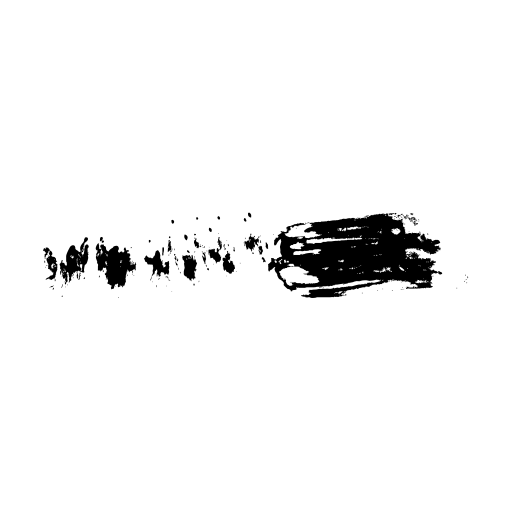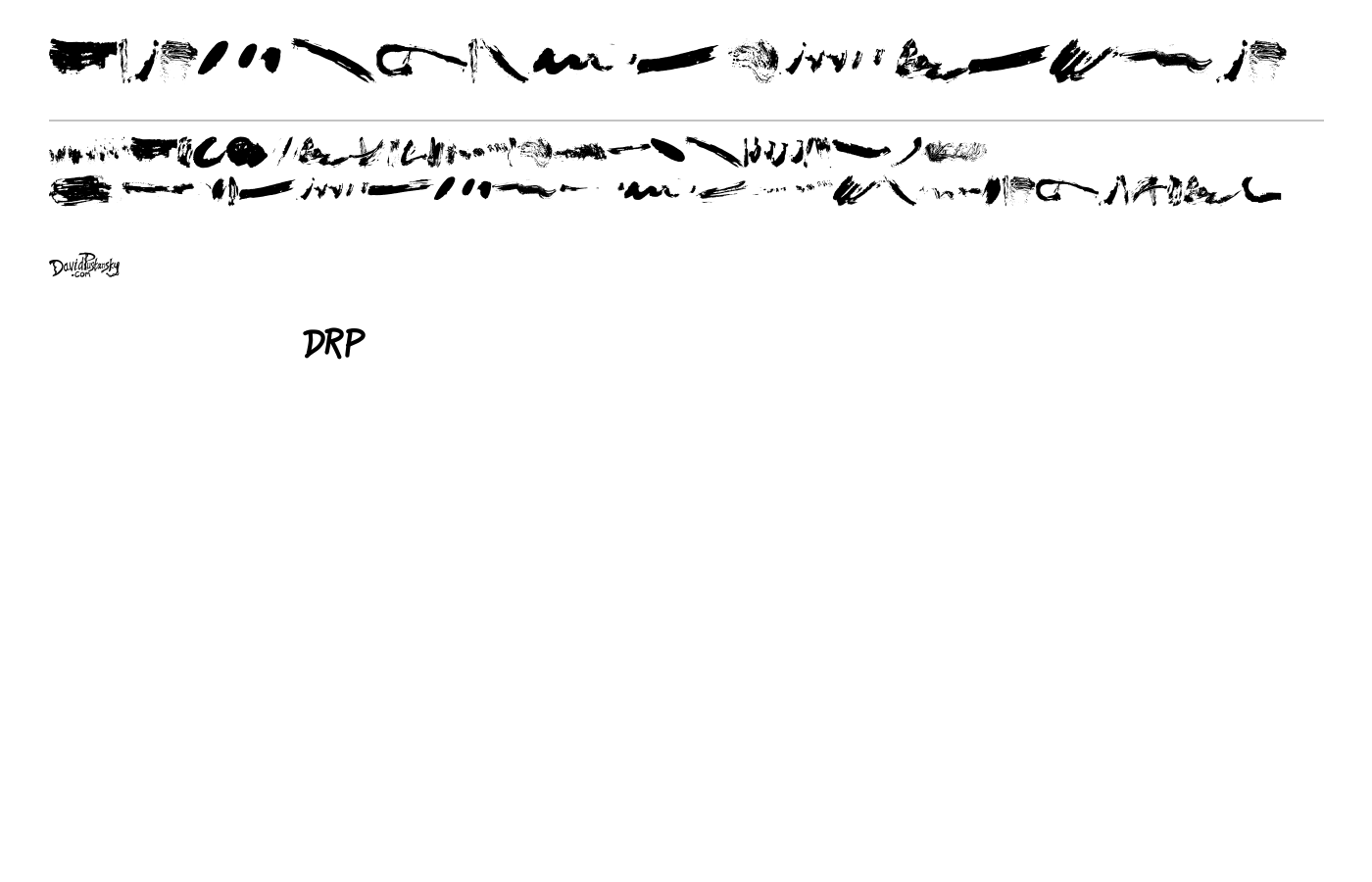
Brush Stroke Of Genius is an expressive handwritten font that mimics bold, textured brush strokes, giving it a raw and artistic feel. Its irregular, rough edges and dynamic movement make it perfect for creative projects like posters, branding, and any design needing a vivid, spontaneous touch. This font works best where an energetic, handcrafted look is desired to convey creativity and individuality.
Brush Stroke Of Genius Font
About Brush Stroke Of Genius Font
| Font family | Brush Stroke Of Genius Font |